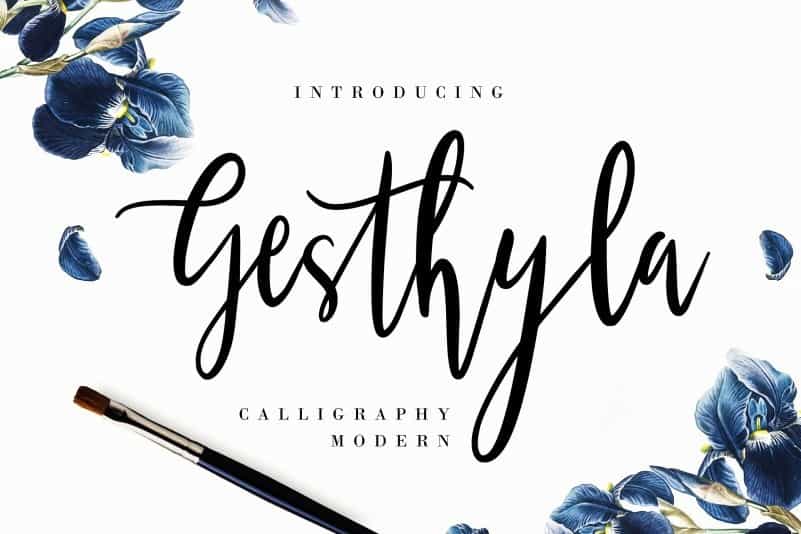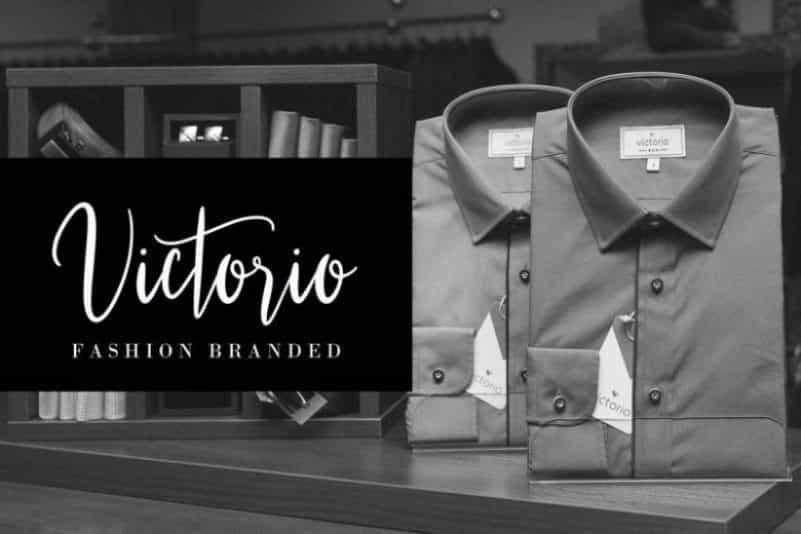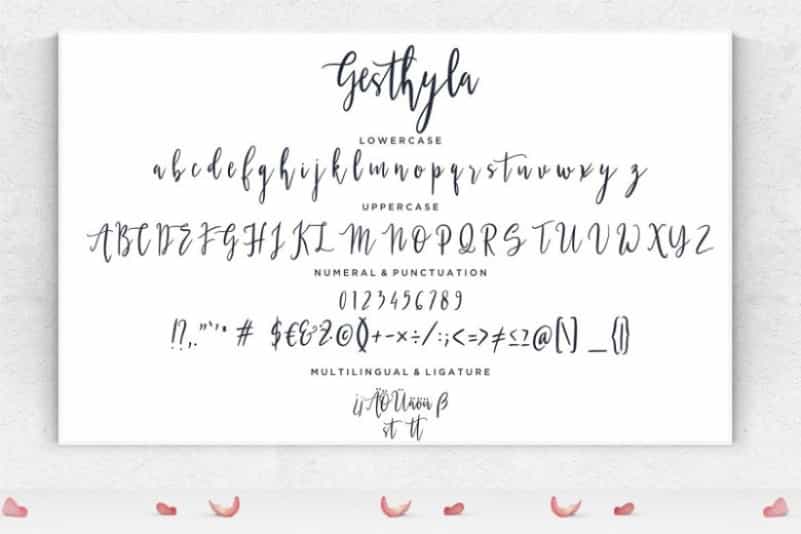
Gesthyla is a handwritten modern calligraphy font that looks classy, elegant and natural. Gesthyla font is great to create a brand identity and add a touch of elegance to every project. It is perfect for wedding invitations or even your blog. With their help, you can create your own design or frame that is beautiful that you can use for decorating your space.